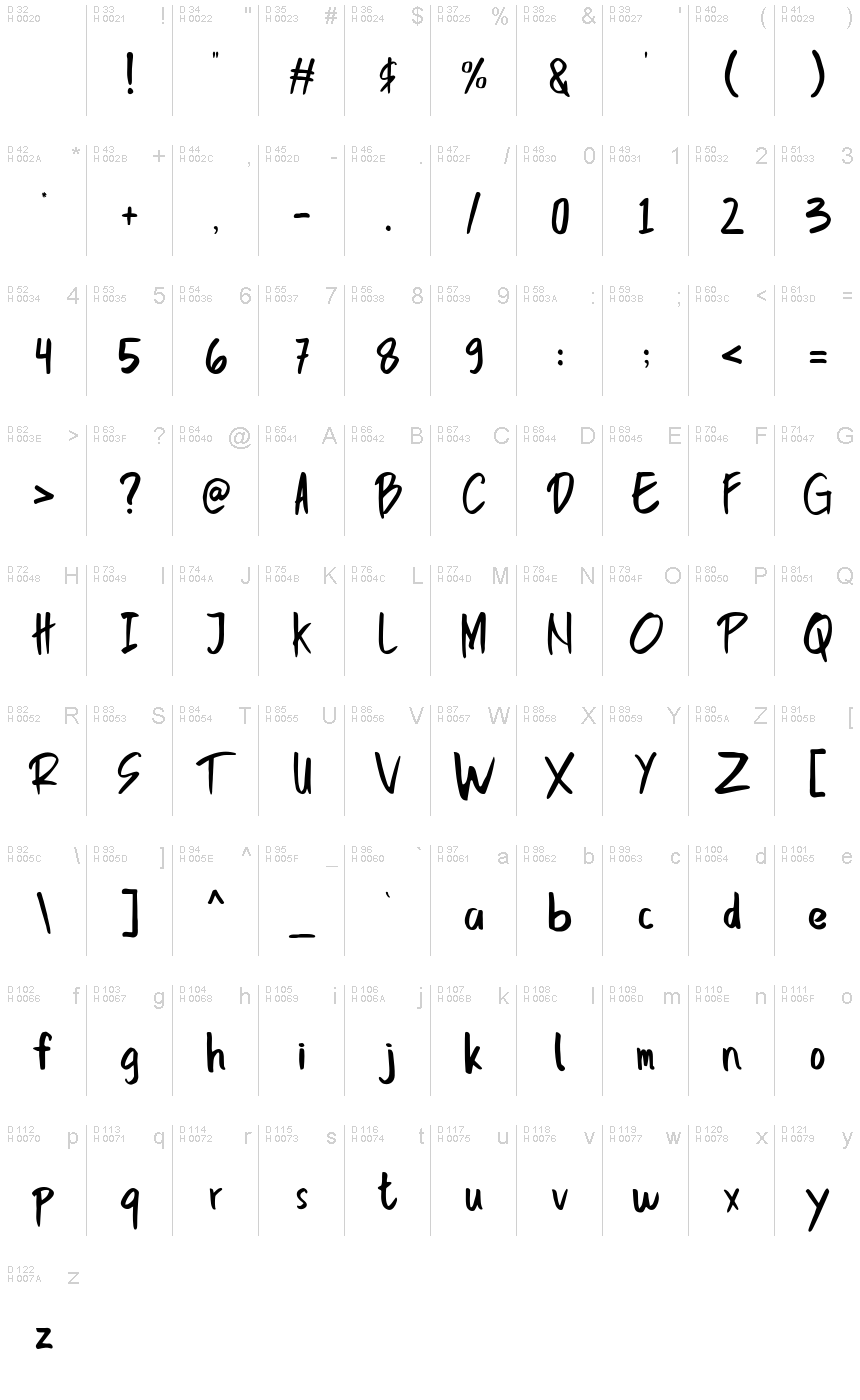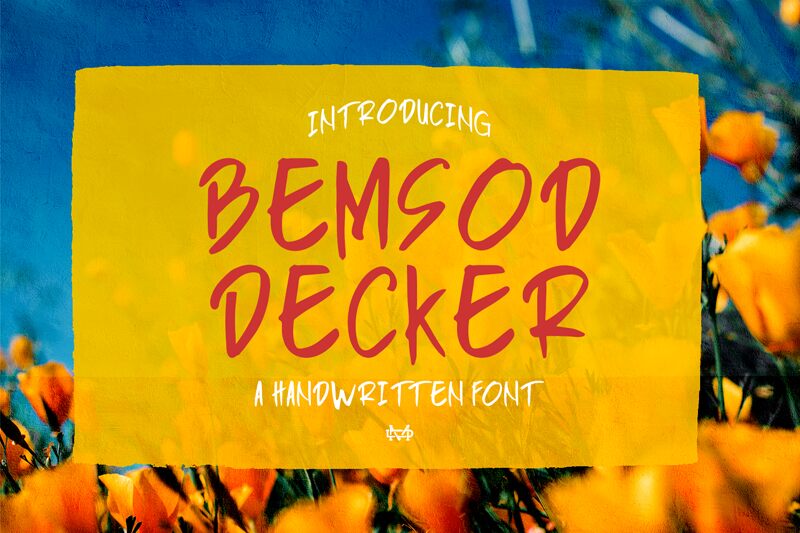
Bemsod Decker Demo Regular
Bemsod Decker, a handwritten font crafted by madeDeduk, exudes a captivating blend of personality and elegance. The organic, fluid strokes and natural variations lend an authentic, handcrafted aesthetic, conveying a sense of warmth and charm. This font's distinct character shines through in its distinctive ligatures, subtle slants, and delicate flourishes, creating a captivating visual experience.
Bemsod Decker's versatility makes it a suitable choice for a wide range of design applications, from sophisticated branding and editorial projects to whimsical product packaging and invitations. Its expressive qualities lend themselves well to establishing a personal, human-centric tone, making it an ideal selection for crafting memorable, impactful messages.